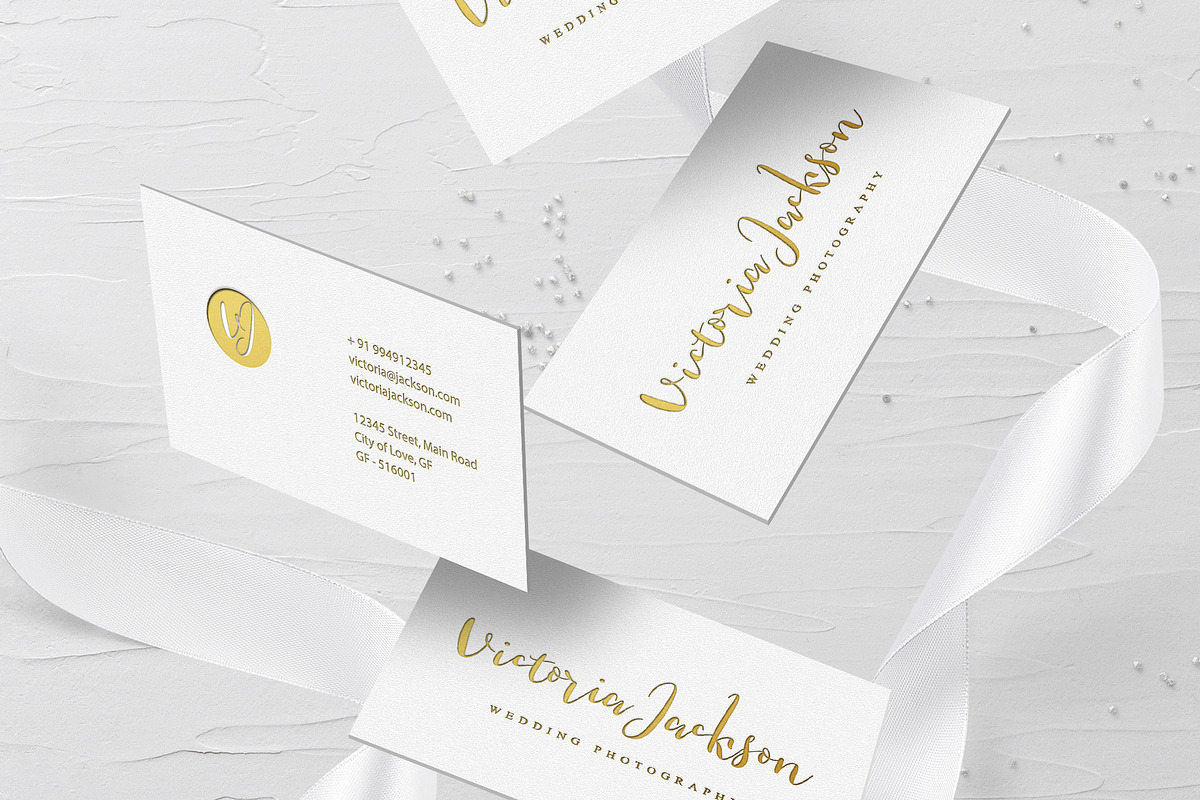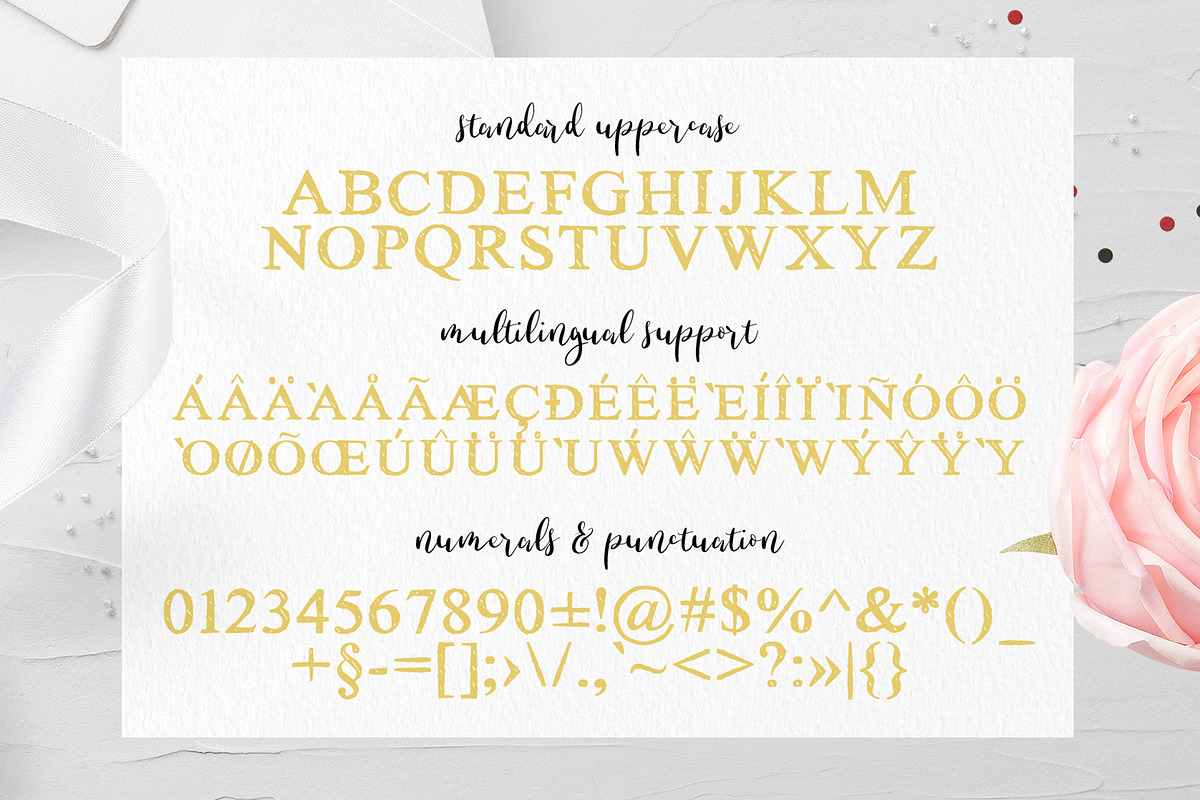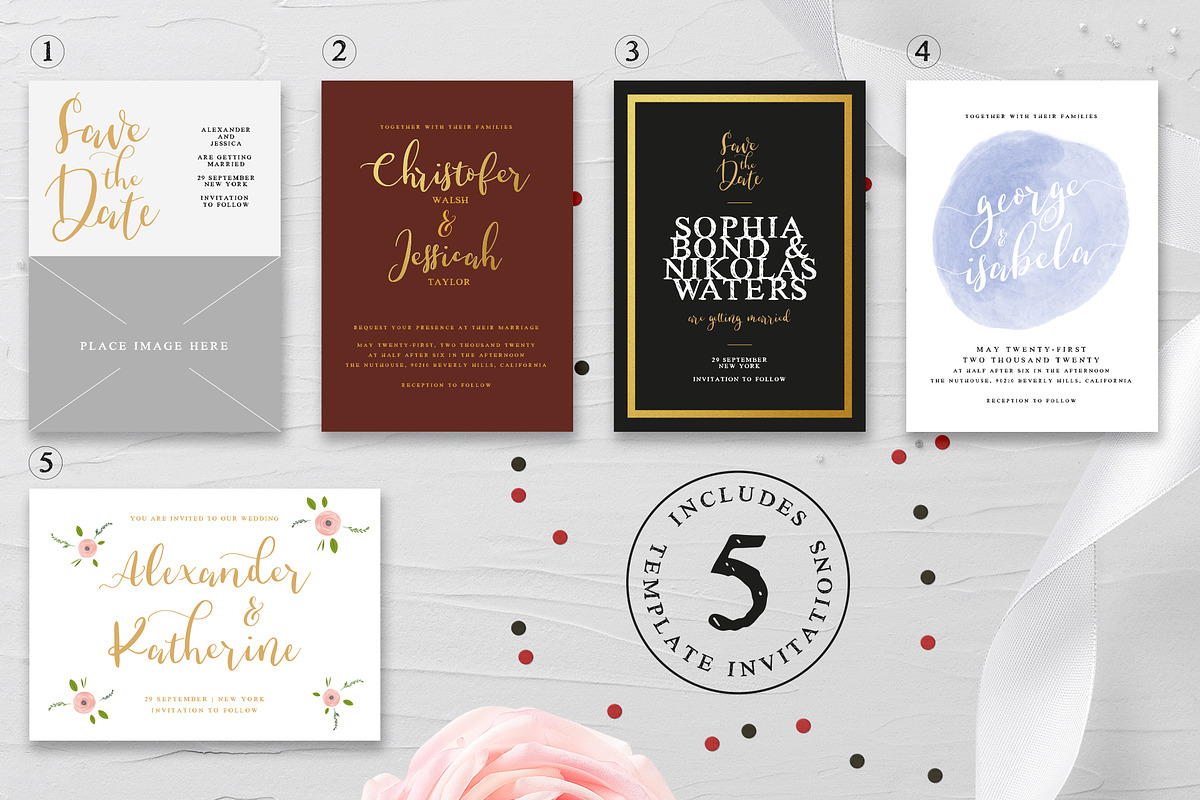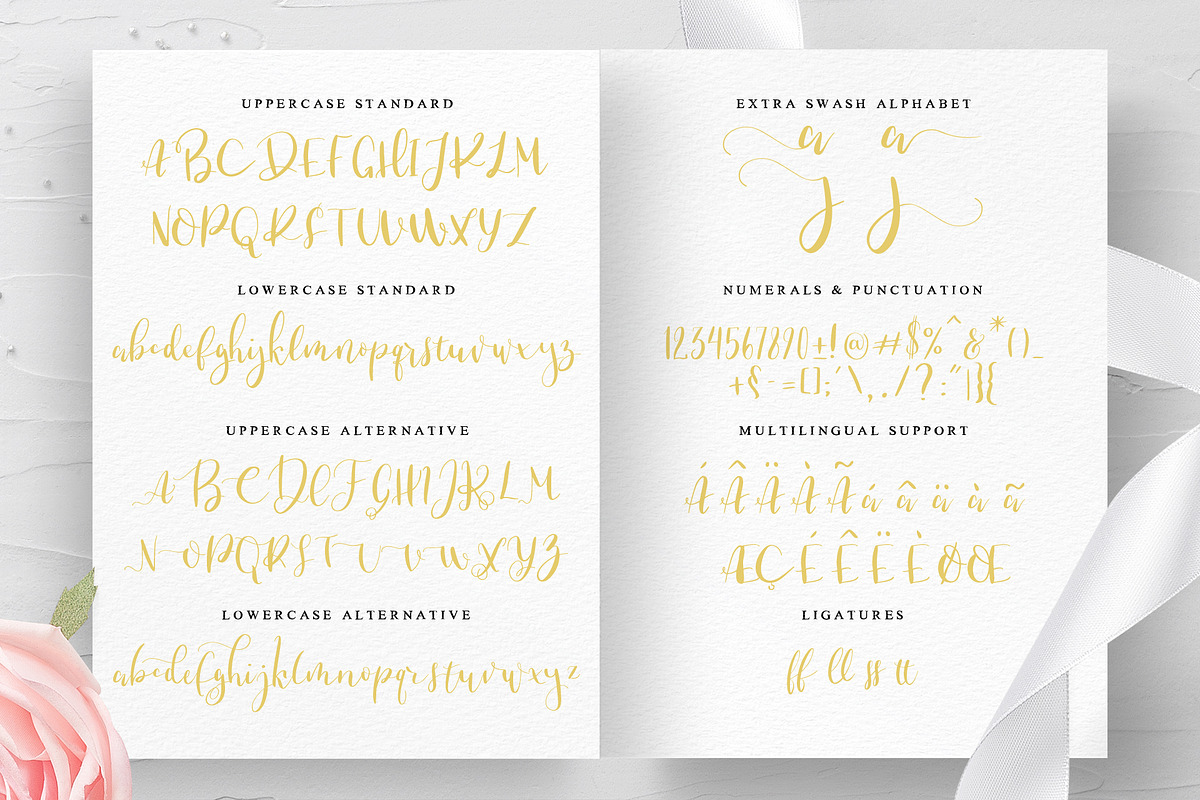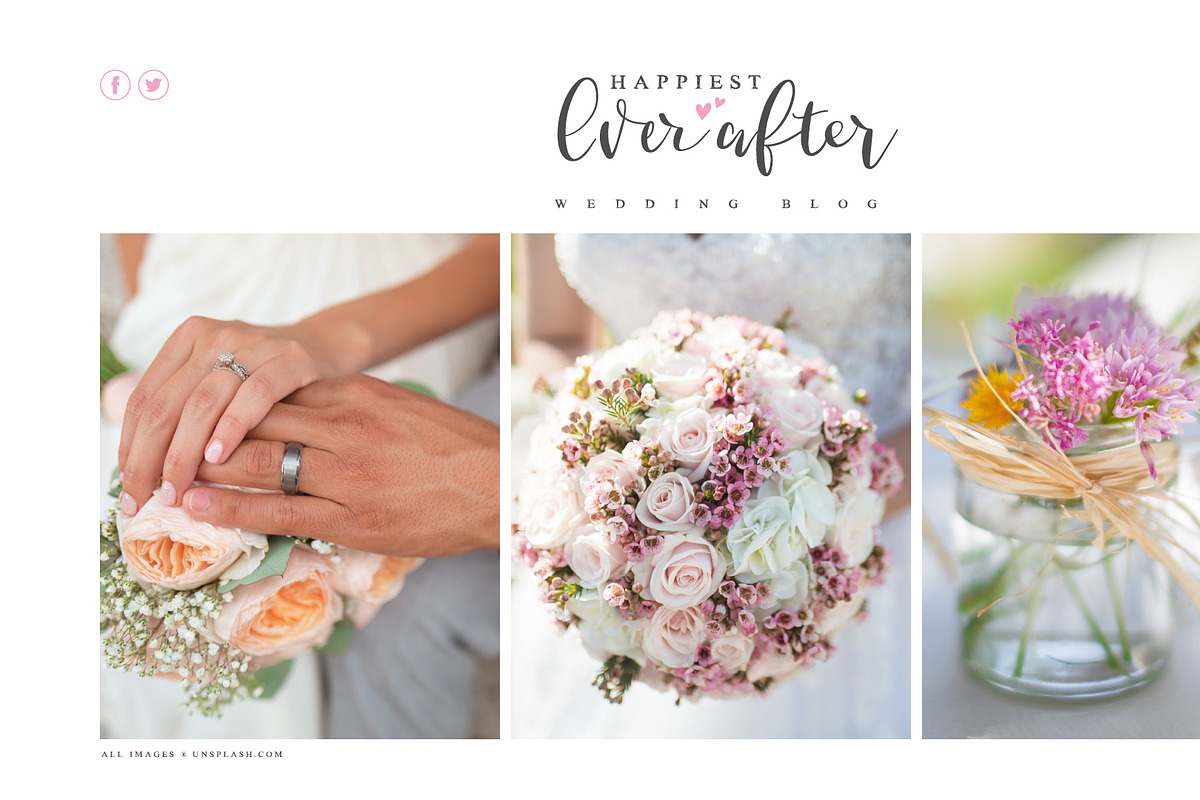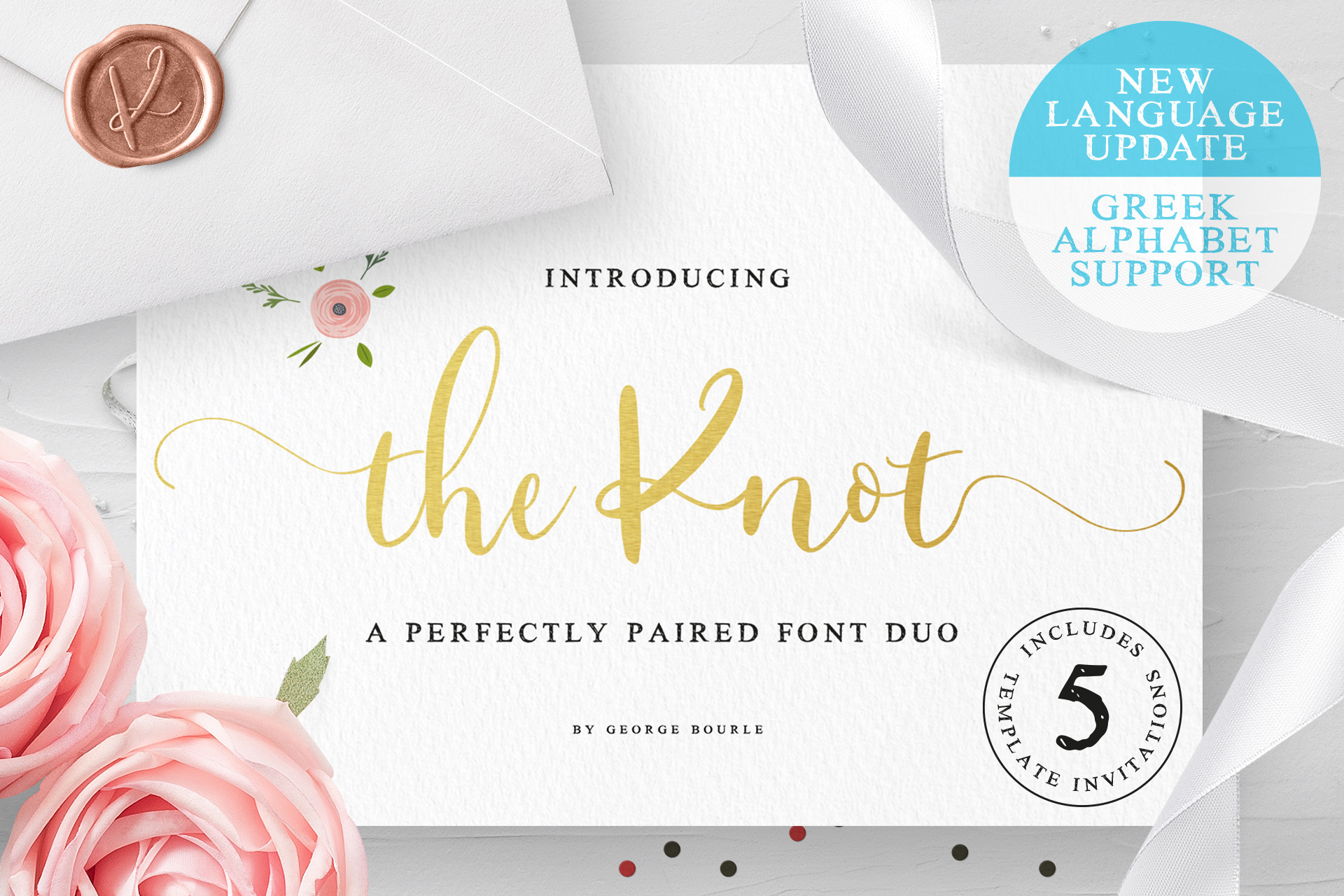
The Knot | A wedding font duo+Bonus
The Knot | A wedding font duo + Bonus
Introducing The Knot, a stylish font duo, designed exclusively for your wedding products.
Create the perfect wedding invitation, pairing The Knot script a hand-scripted modern calligraphy font, along with The Knot serif, a handmade elegant serif font designed for creating great typographic pieces, including branding, product designs, social media campaigns and many more.
The Knot script includes OpenType features with stylistic alternates and ligatures, making the font look as natural as possible.
Supports international languages.
LATE 2020 UPDATE: NOW GREEK LANGUAGE IS SUPPORTED!!!
The Knot collection also includes a set of 5 editable wedding invitation templates (.ai format), each one combining the two The Knot fonts, to create unique designs and use as your own.